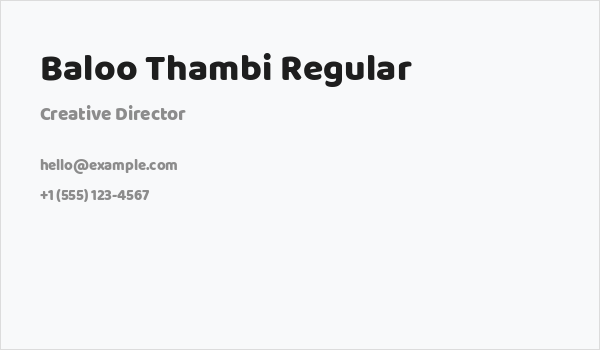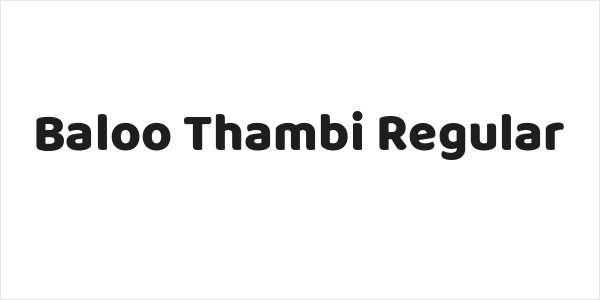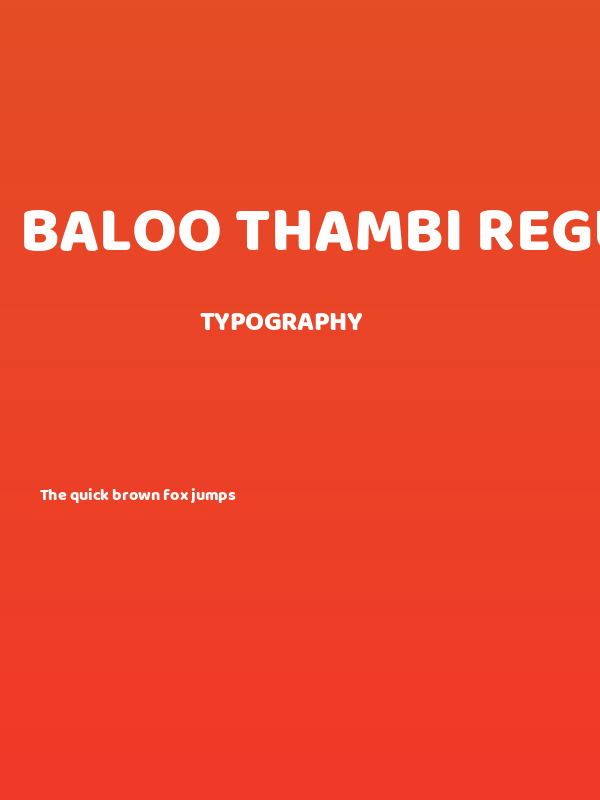
Baloo Thambi Regular Font
Baloo Thambi Regular Description
This font features a playful and rounded design, characterized by its bold and friendly appearance. The letters are thick and have a uniform stroke width, giving it a consistent and approachable look. The rounded edges and smooth curves contribute to its informal and inviting style, making it ideal for projects that require a touch of warmth and friendliness. The numerals and special characters maintain the same rounded and bold aesthetic, ensuring a cohesive look across all text elements. This font is particularly suitable for children's books, playful branding, and any design that aims to convey a sense of fun and accessibility.